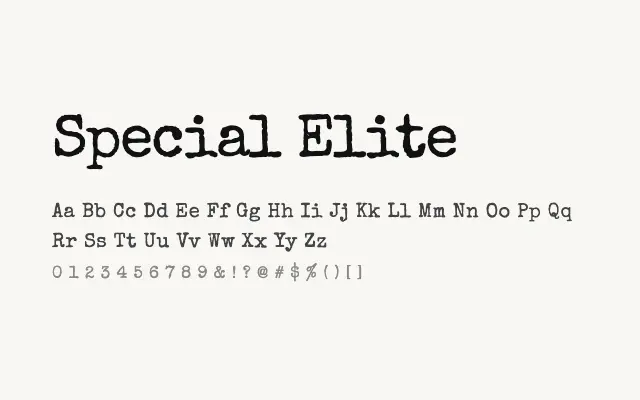
Special Elite
A distressed typewriter-style display face with deliberate imperfection that evokes worn mechanical type.
Special Elite replicates the aesthetic of a typewriter font whose keys have seen considerable use, complete with uneven ink distribution and irregular letterforms. It is a single-trick typeface, but within its niche — vintage editorial, noir-inflected design, pulp fiction aesthetics, and retro branding — it delivers convincingly. Its single weight and narrow application range make it a specialist tool rather than a workhorse.
Special Elite mimics the uneven, ink-heavy impression of a worn typewriter typeface with mechanical damage, producing a deliberately imperfect texture rich in nostalgic character. Each letterform carries irregular edges and ink traps that reinforce its vintage, analogue quality.